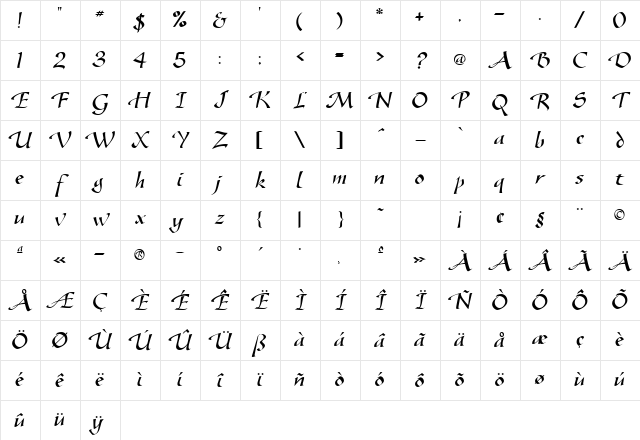
Gazelle (Plain)
Style: (Plain)
Gazelle Family
Design Context for Gazelle
Gazelle is a composed and adaptable typeface that performs quietly and consistently across a wide range of design contexts.